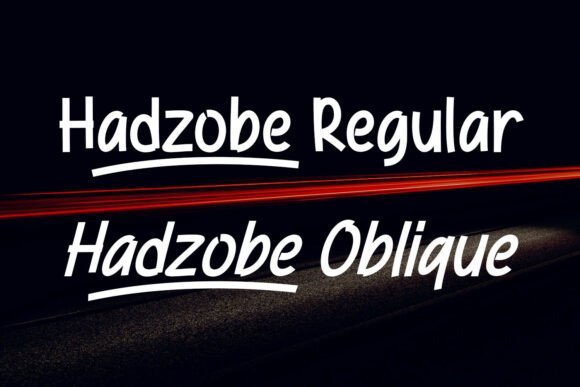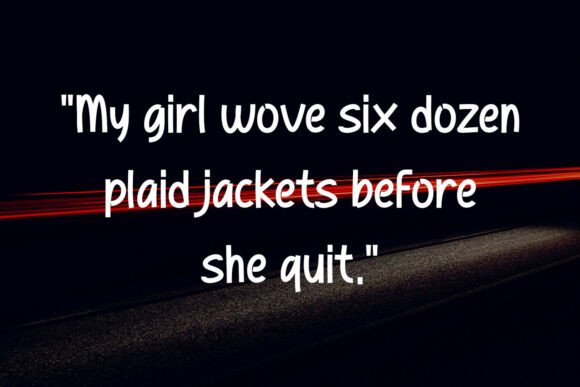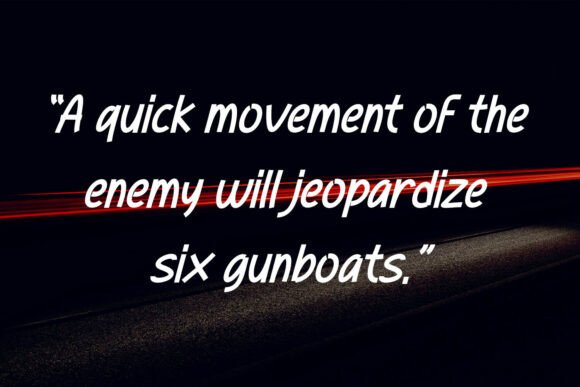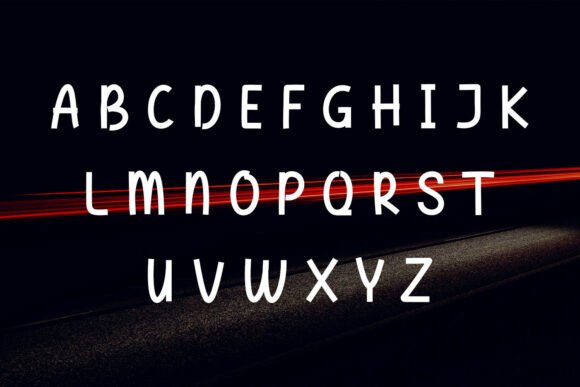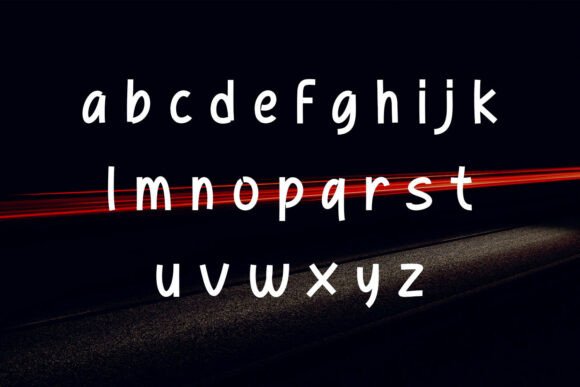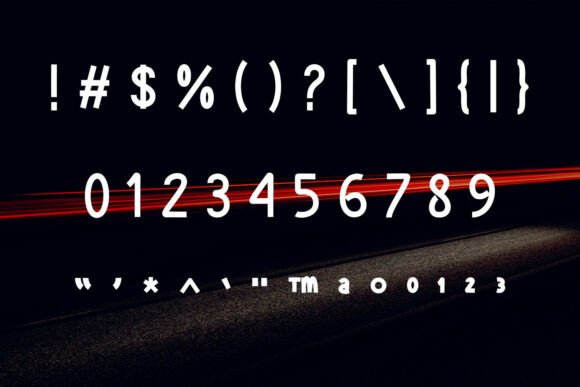
Introducing Hadzobe Font: The Perfect Blend of Modern Handwritten Style and Playful Touch
In the world of typography, fonts play a crucial role in conveying the tone and personality of a brand, design, or project. For designers and crafters looking for a unique and versatile typeface, look no further than Hadzobe Font. This handwritten font seamlessly blends a modern handwritten style with a bold and playful touch, making it an excellent choice for a wide range of applications.
The Unique Characteristics of Hadzobe Font
Hadzobe Font is distinguished by its distinctive characters, which combine rounded shapes with strong straight lines. This thoughtful design creates a casual yet energetic impression, perfect for designs that aim to convey a relaxed but professional feel. The rounded shapes add a touch of friendliness and approachability, while the strong straight lines provide a sense of stability and reliability.
Key Features of Hadzobe Font
• Modern Handwritten Style: Hadzobe Font boasts a contemporary handwritten style that is both fresh and stylish.
• Bold and Playful Touch: The font’s bold and playful elements add a dynamic and energetic feel to any design.
• Casual yet Energetic Impression: The combination of rounded shapes and strong straight lines creates a unique and captivating visual effect.
• Versatile and Adaptable: Hadzobe Font is suitable for a wide range of applications, from branding and posters to creative designs and typographic projects.
Hadzobe Font is an excellent choice for designers and crafters looking to add a personal touch to their work. Its unique blend of modernity and playfulness makes it perfect for:
• Branding: Create a memorable and distinctive brand identity with Hadzobe Font.
• Posters: Add a bold and eye-catching touch to your posters and flyers.
• Creative Designs: Use Hadzobe Font to add a playful and creative element to your designs.
• Typographic Projects: Bring your typographic projects to life with the unique and captivating style of Hadzobe Font.
Why Choose Hadzobe Font?
With so many fonts available, why choose Hadzobe Font? Here are just a few reasons:
• Unique Style: Hadzobe Font offers a distinctive and refreshing style that sets it apart from other fonts.
• Versatility: The font’s adaptability makes it suitable for a wide range of applications and projects.
• Easy to Read: Despite its playful and bold nature, Hadzobe Font remains easy to read and understand.
• High-Quality Design: The font is designed with precision and attention to detail, ensuring a high-quality finish.
In conclusion, Hadzobe Font is an exceptional handwritten typeface that blends a modern handwritten style with a bold and playful touch. Its unique characteristics, versatility, and high-quality design make it an excellent choice for designers and crafters looking to add a personal touch to their work. Whether you’re working on a branding project, poster, or creative design, Hadzobe Font is sure to make a lasting impression.